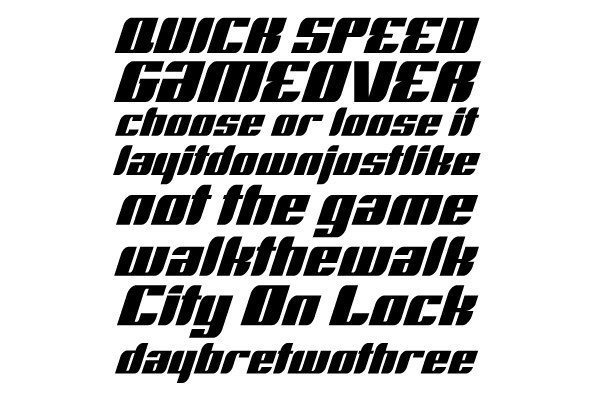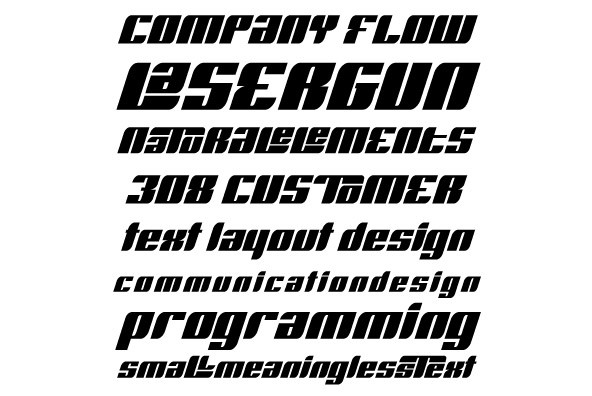
Runway is the font that will satisfy the need for speed in your design. Simple lines and curves, a commanding slant, and big sturdy shapes made to cruise at any speed or altitude, through summer breeze or horrible snowstorms.
Runway was designed to be tight like an engine chain, powerful like the hum of the engine itself, and simply the best choice when it comes to strength and velocity in design.
Initially Runway was meant to be a single font. But during the spacing and kerning stages, Patrick noticed that most of the letters, especially the vowels and the s, can clasp stylishly with the L or the T to make some really funky combinations. That's how the Alternates font was born. After building a few alternates and about 40 'clasped' combinations around the L and the T, the decision was made to take Runway to the next level: OpenType.
The OpenType version of Runway is a single font that contains some serious font magic. Some of the many features the font includes: Over 430 characters for that great character map utility you have, automatic to-and-fro small-capping, discretionary ligatures that call up some pretty funky combinations automatically as you type, and a lot of stylistic and contextual alternates for many characters, ligatures and composites.